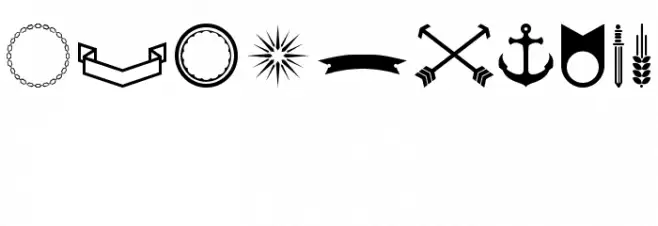
Authentic Labels Demo Font
Authentic Labels Demo Description
A collection of vector-style label, badge, and emblem shapes, including circular, shield, ribbon, and decorative motifs, suitable for branding and packaging design.
A decorative set of label and emblem vector shapes from Uncategorized fonts.
- Proposed Projects: Logo creation, packaging design, vintage branding, product labels, badges, and signage.
- Overall Style: Vintage, Decorative
- Use Case: Logos, Labels, Badges, Packaging